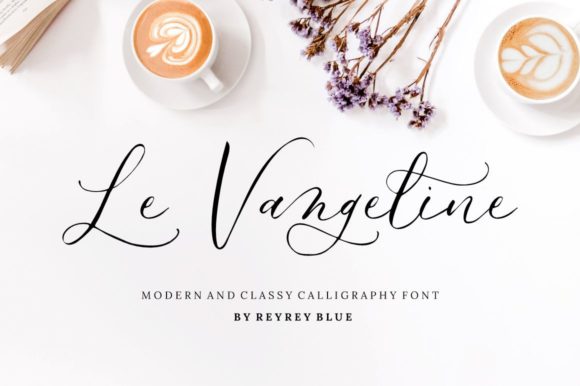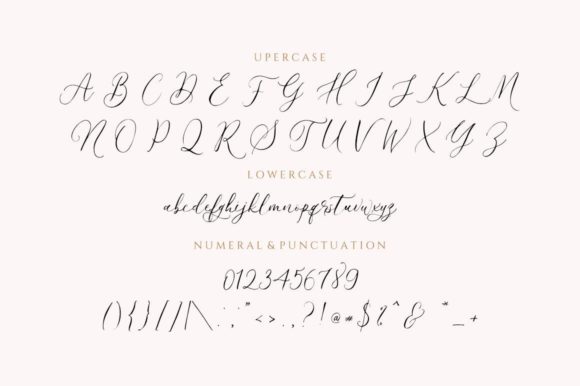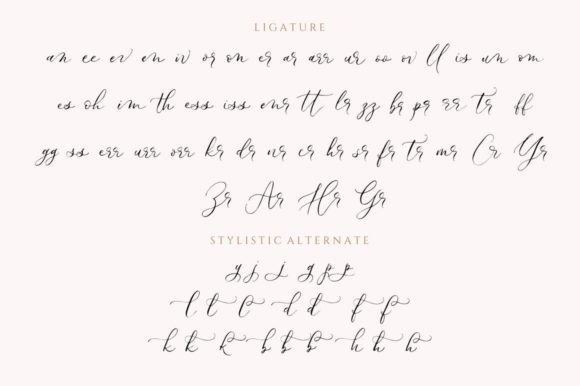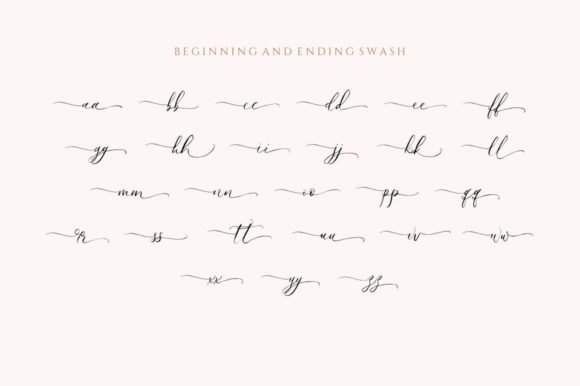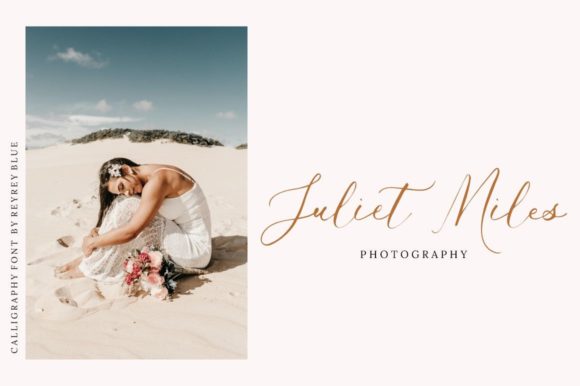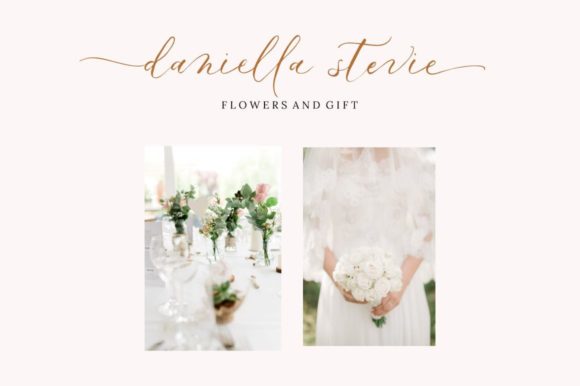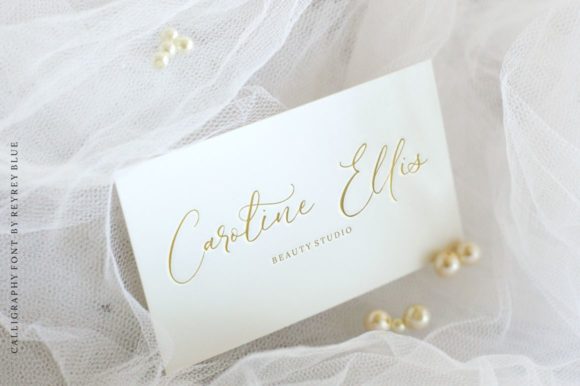
Le Vangeline Font
About Le Vangeline Font
Le VangelineĀ is a sweet and delicate handwritten font. This font is PUA encoded which means you can access all glyphs and swashes with ease!